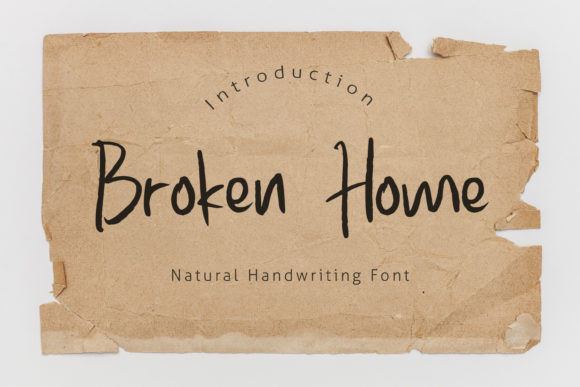
Introducing Broken Home Font, a dazzling script font family that will ignite your mobile app designs with unmatched elegance and timeless appeal. Its fluid handwritten strokes, expertly crafted by the renowned sketsadraw, capture the essence of heartfelt emotions, making it the perfect font for captivating your audience and leaving an unforgettable impression.
Immerse yourself in the world of Broken Home Font and discover its extraordinary versatility. With its enchanting character, this font transcends the boundaries of ordinary typography, transforming your mobile app designs into captivating masterpieces. Witness how its graceful curves and delicate flourishes add a touch of sophistication and allure, drawing users into your app's embrace like never before.
Whether you seek to craft a welcoming user interface, compose compelling headlines that resonate with your audience, or design captivating marketing materials, Broken Home Font is your ultimate ally. Its effortless readability, even on smaller mobile screens, ensures that your message will always reach its destination with crystal clarity.
Experience the power of a font that speaks to the heart and inspires creativity. Broken Home Font is not merely a collection of letters; it's a gateway to expressing your unique style, connecting with your users on a deeper level, and leaving an everlasting mark on the mobile app landscape.
Embrace the beauty of Broken Home Font today and unlock a realm of endless possibilities in the world of mobile app design. Let its flowing strokes guide you towards creating apps that captivate, inspire, and forever etch themselves into the minds of your users.